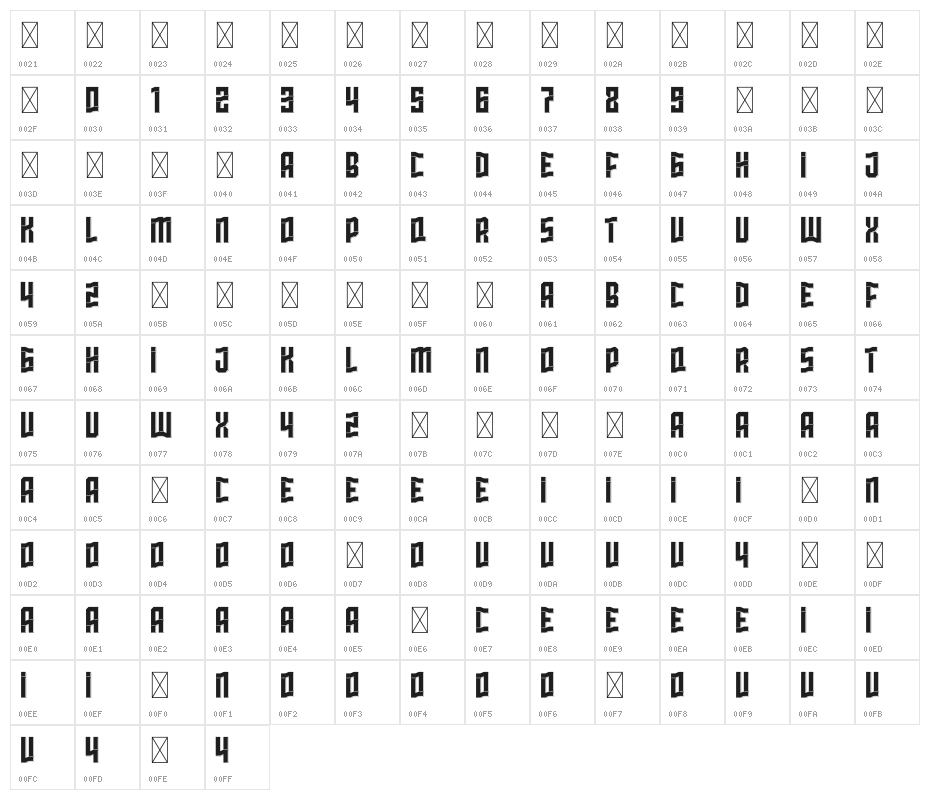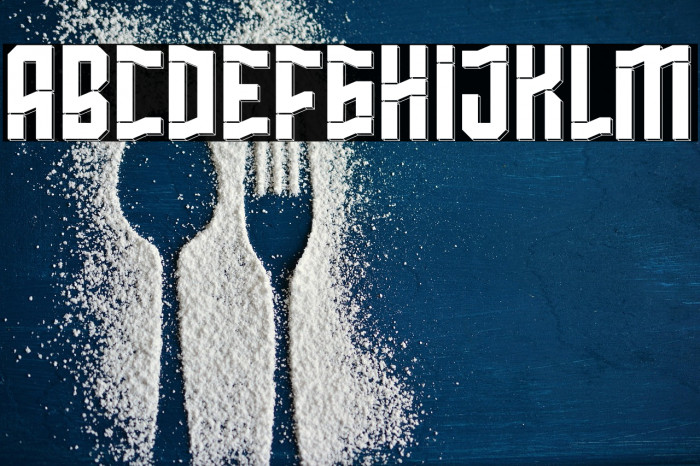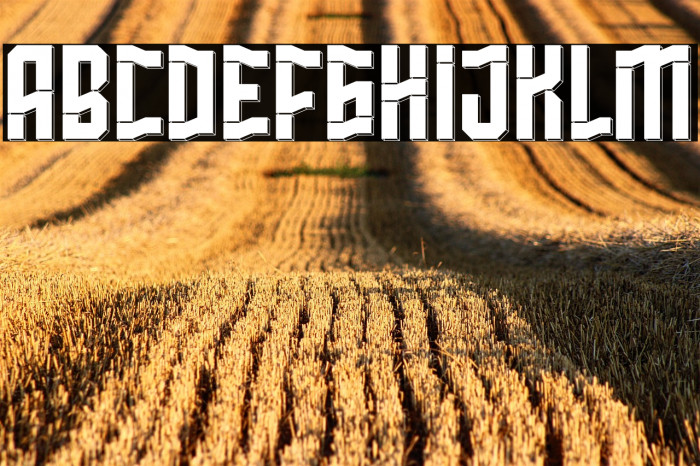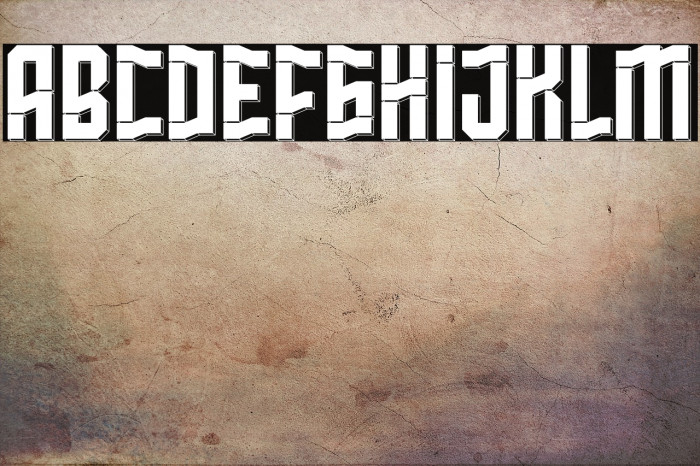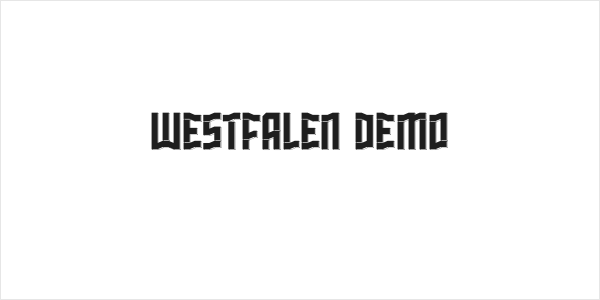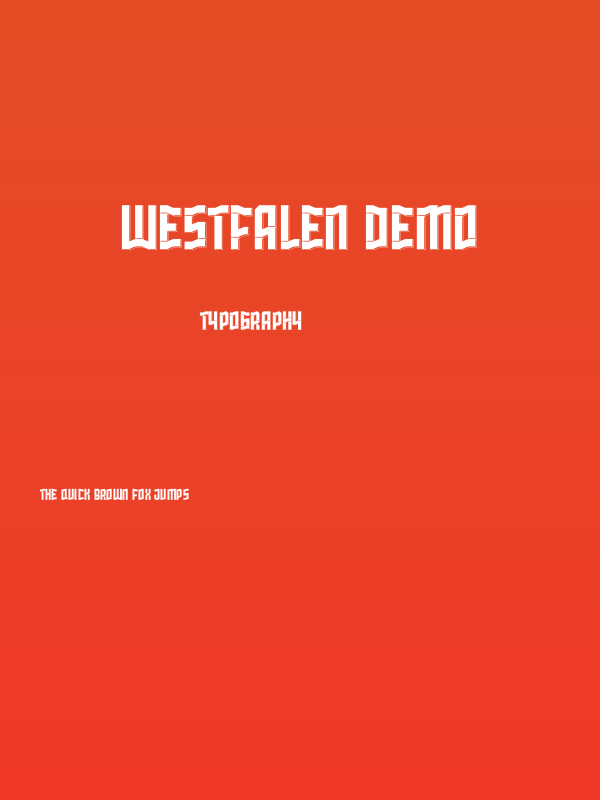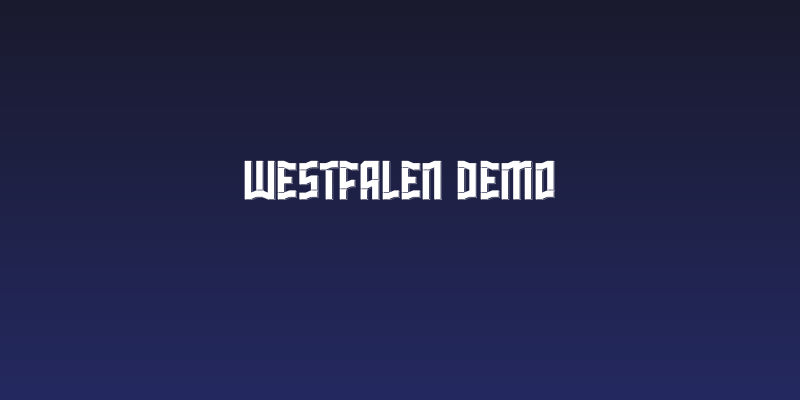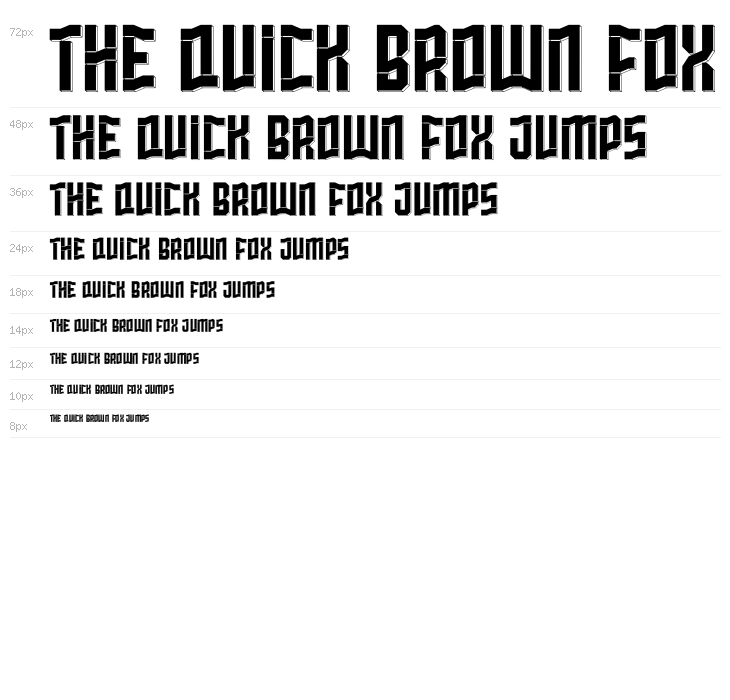
Westfalen Demo Font
Westfalen Demo Description
This font features a bold and angular design, reminiscent of traditional Blackletter styles but with a modern twist. The characters are constructed with sharp, geometric lines and a strong presence, making it ideal for impactful headlines or branding. The uppercase and lowercase letters maintain a consistent style, with a uniform height and width that contributes to a cohesive look. The numbers are equally bold, ensuring they stand out in any design. The absence of special characters suggests a focus on alphanumeric use.